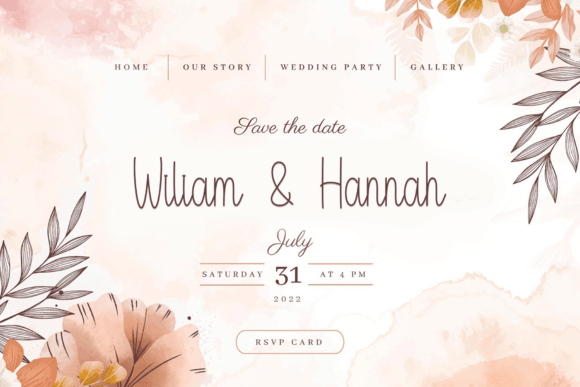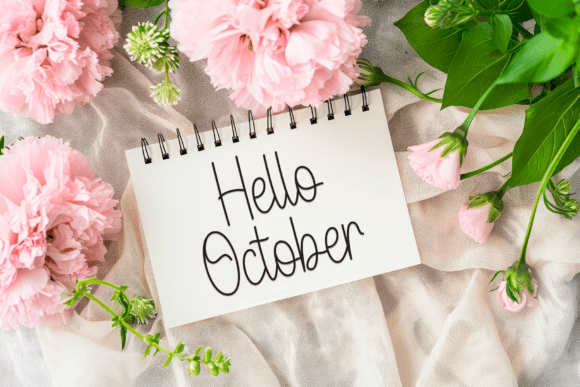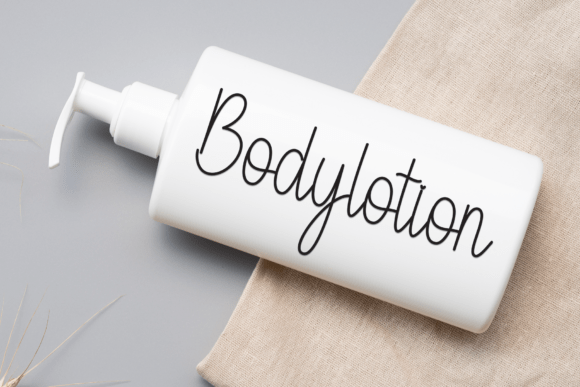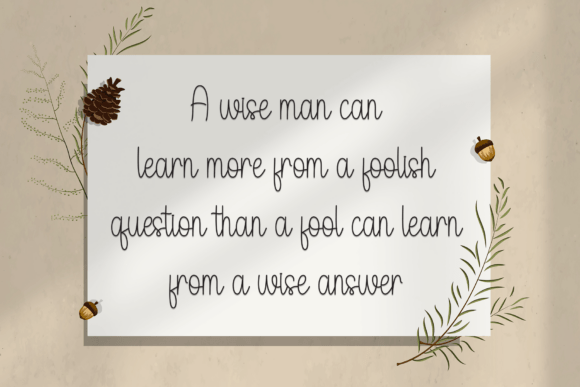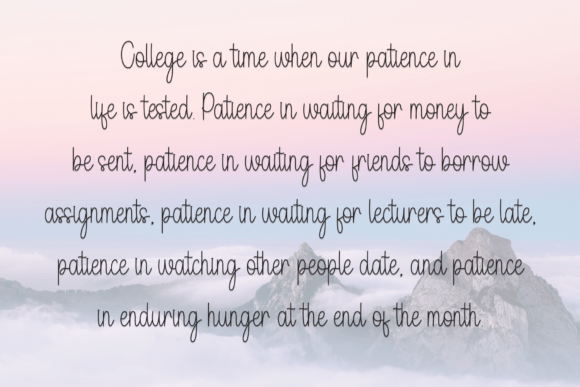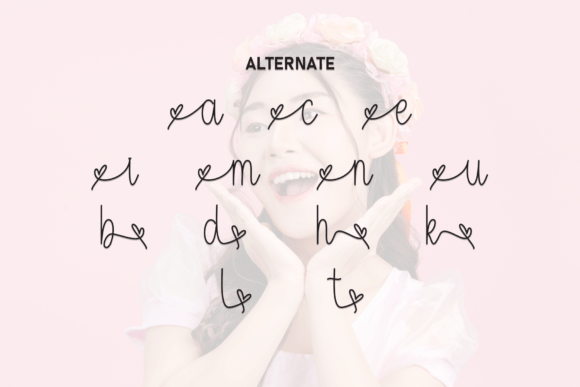
Introducing Cutegirl Font: The Ultimate Choice for Sweet and Charming Designs
Are you looking for a font that can add a touch of sweetness and charm to your designs? Look no further than Cutegirl font, a beautiful and delicate monolinear script that is sure to capture the hearts of your audience. With its signature heart-shaped swashes and playful terminal flourishes, Cutegirl font is the perfect choice for creators who want to express “love,” “kindness,” and “youthful joy” through their typography.
The Characteristics of Cutegirl Font
Cutegirl font is defined by its light, airy weight that makes it feel personal, approachable, and deeply feminine. Its monolinear script style gives it a charming and delicate look that is perfect for a variety of design projects. The font’s signature heart-shaped swashes and playful terminal flourishes add an instant “kawaii” or romantic aesthetic to any word, making it a must-have for beauty branding, Valentine’s Day cards, and social media lifestyle graphics.
Perfect for Beauty Branding and Lifestyle Graphics
Cutegirl font is a perfect choice for beauty branding, as it evokes a sense of sweetness, innocence, and playfulness. Its delicate and charming look makes it ideal for designing logos, packaging, and marketing materials for beauty and lifestyle brands. Additionally, the font’s romantic aesthetic makes it perfect for Valentine’s Day cards, wedding invitations, and other special occasion designs.
Tips for Using Cutegirl Font
To get the most out of Cutegirl font, here are a few tips to keep in mind:
• Pair it with pastel color palettes to enhance the romantic vibe of the font.
• Combine it with delicate floral illustrations to add a touch of whimsy and playfulness.
• Use it in social media lifestyle graphics to add a personal and approachable touch.
• Experiment with different alternates and flourishes to add variety and interest to your designs.
Easy to Use and Accessible
One of the best things about Cutegirl font is how easy it is to use. Thanks to PUA encoding, you can access all alternates and flourishes with ease, without needing any special design tools. This makes it perfect for DIY crafters and boutique brands who want to create beautiful designs without a steep learning curve.
A Must-Have for Creators
Cutegirl font is a must-have for creators who want to add a touch of sweetness and charm to their designs. Whether you’re a professional designer or a DIY crafter, this font is sure to become a staple in your design toolkit. Its versatility, ease of use, and charming aesthetic make it perfect for a wide range of design projects, from beauty branding to social media graphics.
In conclusion, Cutegirl font is a beautiful and charming monolinear script that is perfect for creators who want to add a touch of sweetness and romance to their designs. With its signature heart-shaped swashes, playful terminal flourishes, and light, airy weight, this font is sure to capture the hearts of your audience. Whether you’re designing for beauty branding, Valentine’s Day, or social media lifestyle graphics, Cutegirl font is the ultimate choice for expressing “love,” “kindness,” and “youthful joy” through your typography.